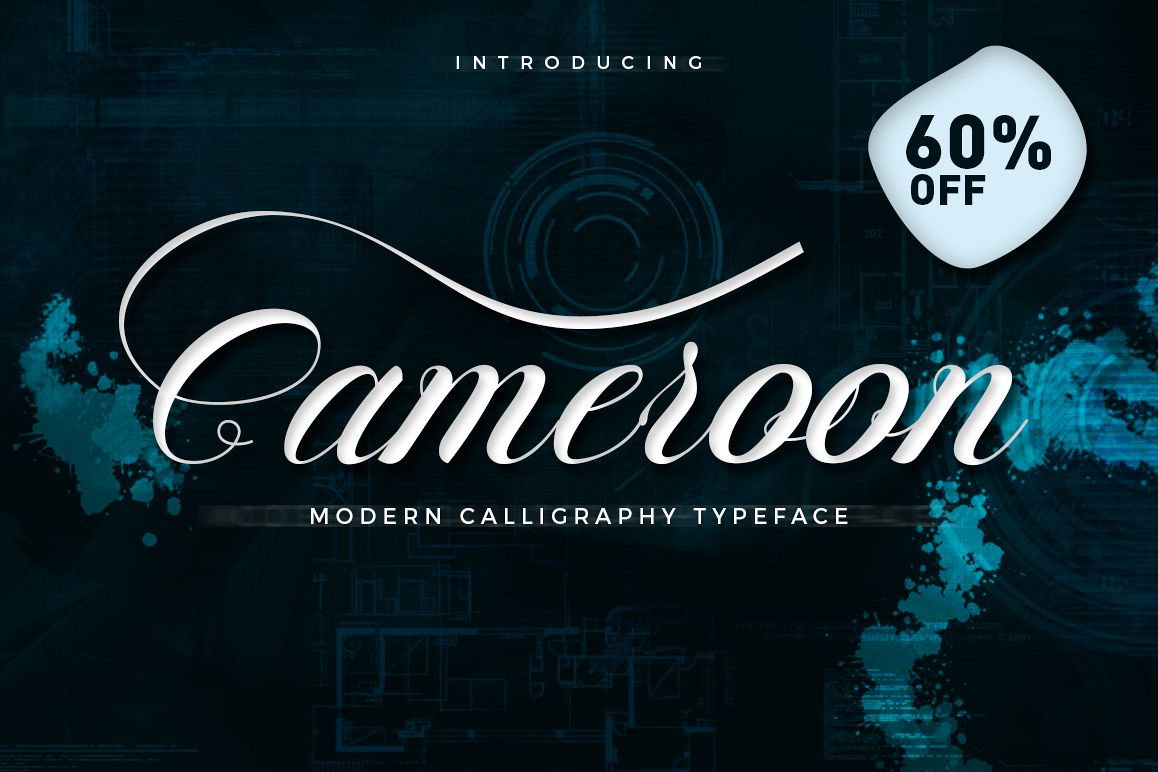
Cameroon
I N T R O D U C I N G
Cameroon Script is a beautiful hand painted script that comes with a set of extras. Fresh & modern script with a sweet calligraphy-style, decorative characters and a dancing baseline. All letters have been carefully painted giving your words a wonderful flow. Highly Suitable for a variety of media design, logo, fashion, poster and all design product.